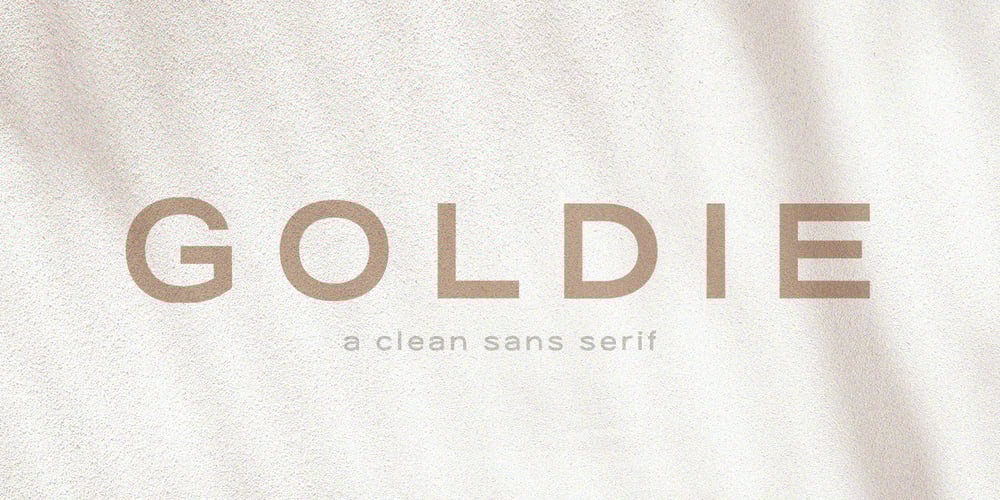
Goldie Sans Font Family was designed by Blythe Green and published by Blythe Green. Goldie Sans contains 2 styles and family package options. Goldie Sans is a clean sans serif that is perfect for logos, quotes, long-form copy, and more. Both uppercase and lowercase are included in light and bold, but I am particularly fond of using it as an all caps font for logos, headlines, and short quotes. INCLUDED uppercase letters lowercase letters numbers & punctuation light and bold fonts foreign language characters